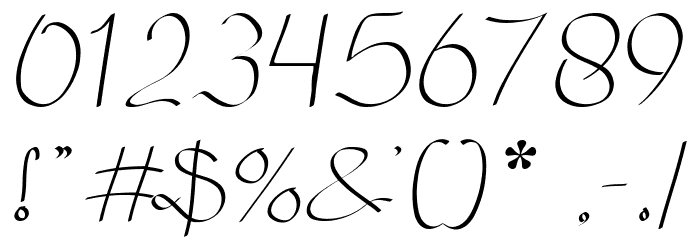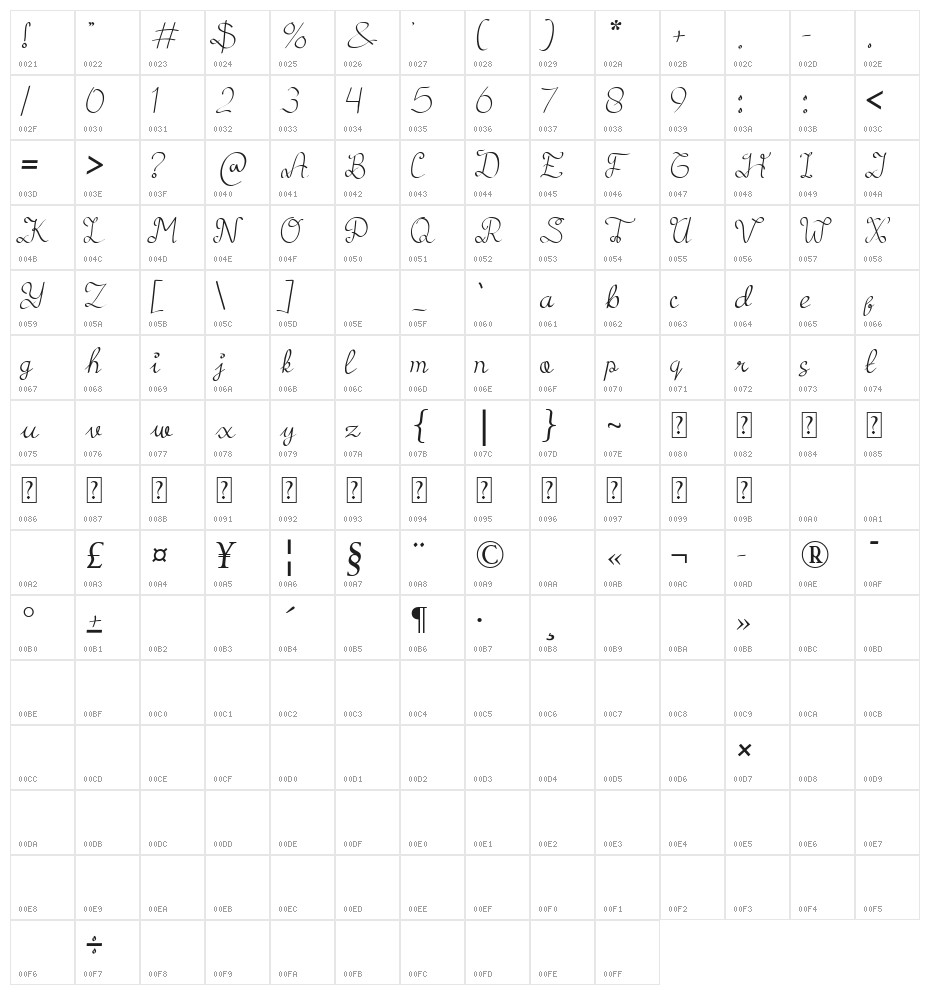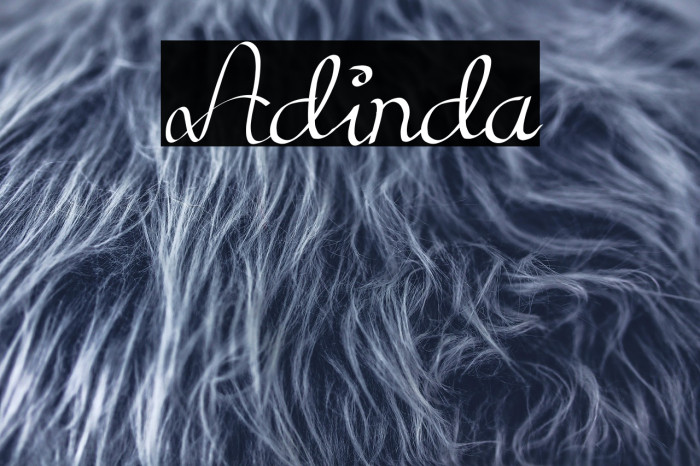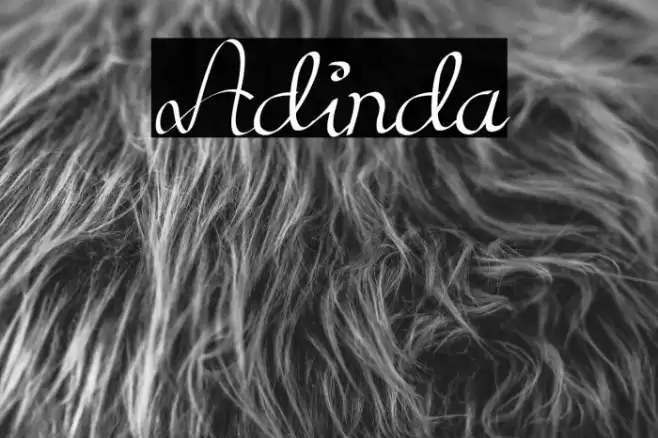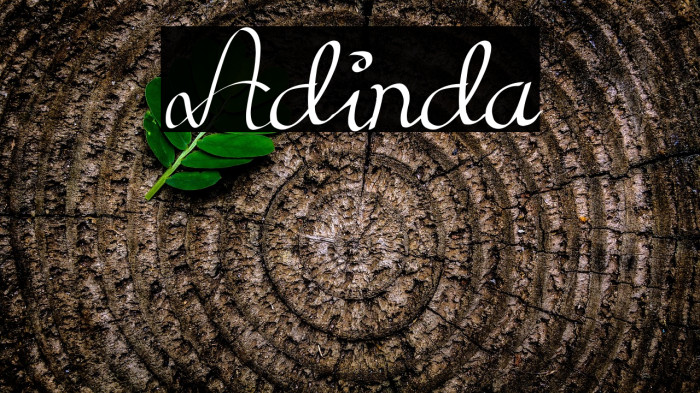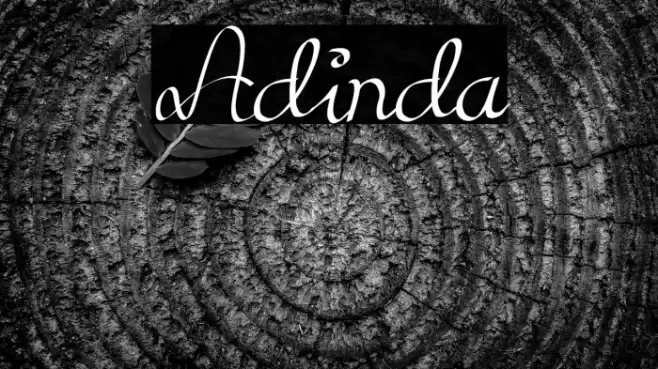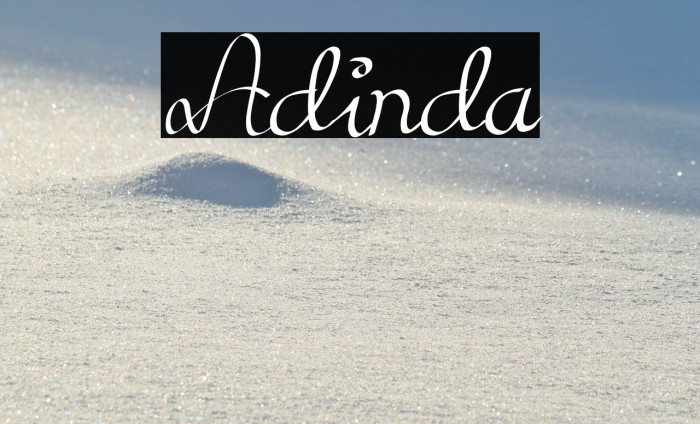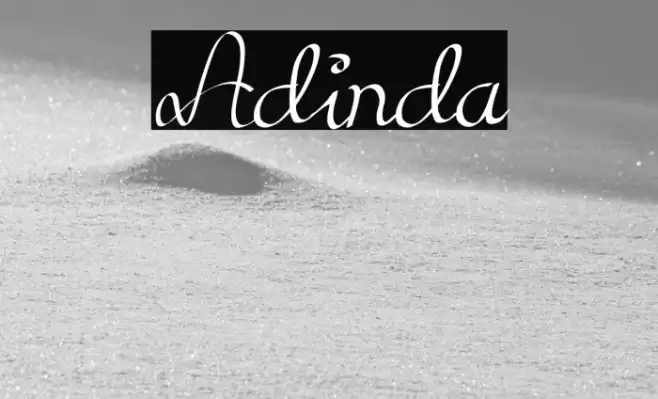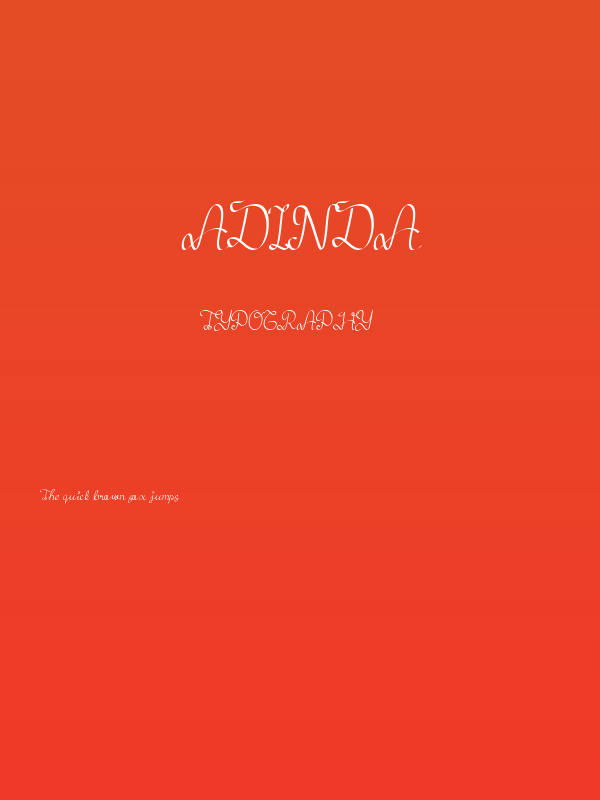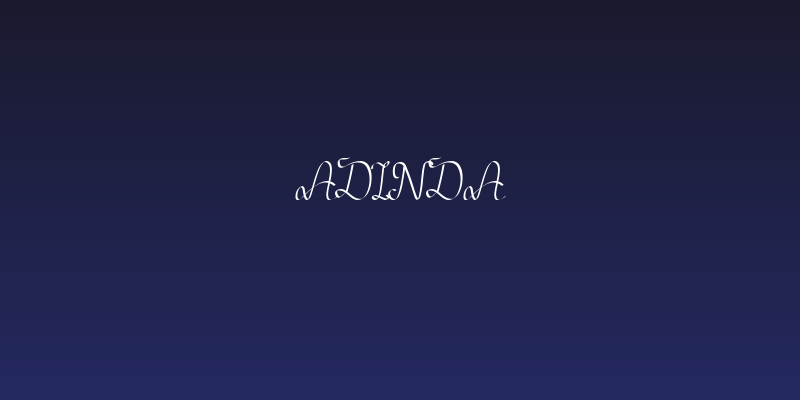
Adinda Font
Adinda Description
This font features an elegant and flowing script style, characterized by its intricate loops and swirls that give it a sophisticated and artistic appearance. The uppercase letters are particularly ornate, with decorative flourishes that extend beyond the baseline and cap height, adding a touch of grandeur. The lowercase letters maintain a consistent flow, with smooth connections that enhance readability while preserving the decorative nature. The numerals and special characters are designed to complement the overall style, ensuring a cohesive look across all text. This font is ideal for projects that require a touch of elegance and creativity.
| Overall Style | Elegant, Artistic |
| Proposed Projects | Wedding invitations, luxury branding, artistic posters, and elegant stationery. |